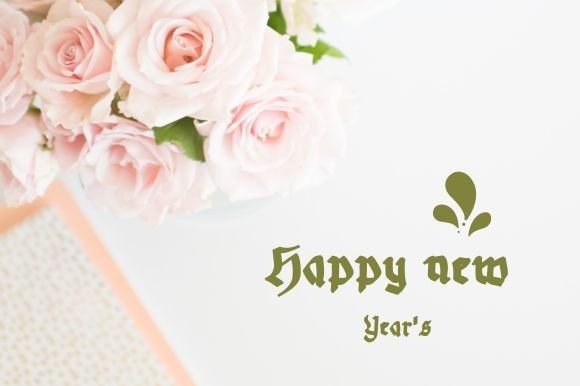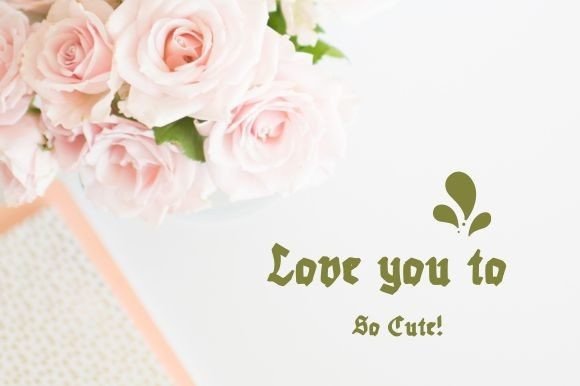
Introduction to Sn Wila Font
Have you ever stumbled upon a blank piece of paper or a blank screen, and suddenly a wave of creativity washes over you? That’s exactly what happened to many designers when they discovered the Sn Wila Font. This beautiful, handwritten font is perfect for a variety of crafting projects, from designing clothes and bags to creating mugs and greeting cards.
As a designer, you know how valuable it is to have a high-quality font that’s easy to use and versatile. Sn Wila Font delivers on all fronts, offering a delicate, yet bold character that’s perfect for a range of creative projects. With its transparent background, it’s easy to layer and combine with other design elements to create unique and eye-catching designs.
- Unique, hand-drawn design elements and intricate details
Honest Review: Sn Wila Font
As a designer, I’m always on the lookout for unique and high-quality design resources to elevate my creative projects. The Sn Wila Font caught my eye with its playful and elegant design. In this review, I’ll share my honest thoughts on what works well and what could be improved.
- ✨ Unique and creative design style that sets it apart from other fonts
- ✨ Perfect for projects that require a touch of elegance and sophistication, especially with its transparent background
- ⚠️ Limited font weights and styles available, which may not be suitable for all design projects
- ⚠️ Some characters may not be as detailed as I would like, but still readable
Overall, I’m impressed with the Sn Wila Font’s unique design and high-quality files. While it may have some limitations, it’s still a valuable addition to any designer’s toolkit. I’d recommend it for creative projects that require a touch of elegance and sophistication.
The Sn Wila Font is ideal for use in logos, branding, and marketing materials. Its high-quality design makes it suitable for a wide range of creative projects, from digital to print media.